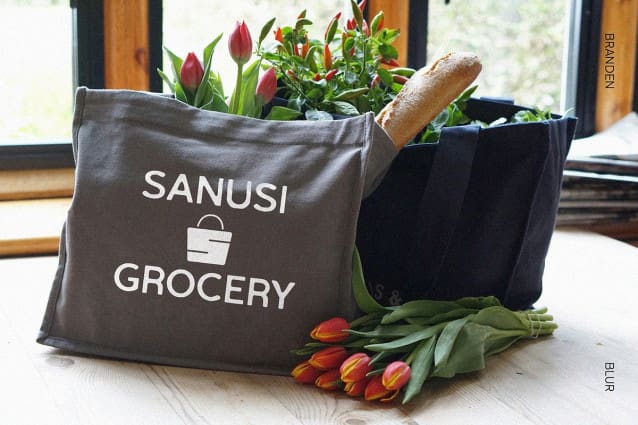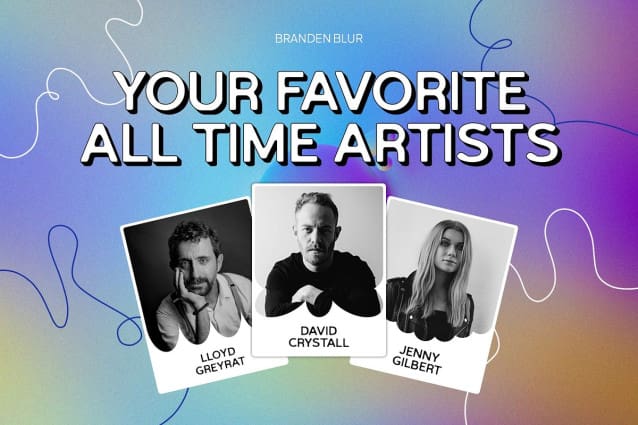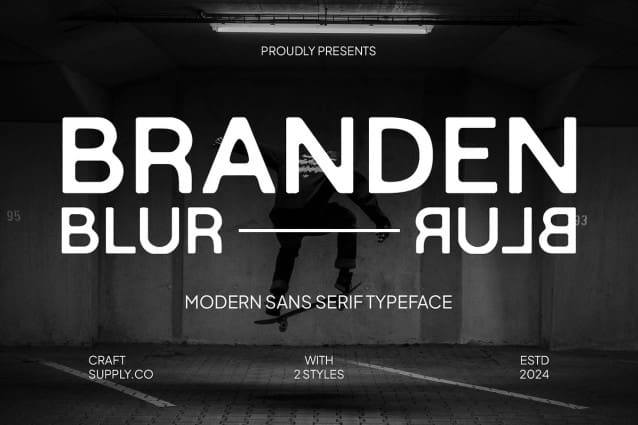
Branden Blur Font
Branden Blur Font is a modern sans-serif font with a blur effect, perfect for conveying a modern, futuristic, and experimental feel. Its sleek and contemporary design adds a unique touch to any project, ensuring your message stands out with a modern edge.
Ideal for Creative Projects Perfect for posters, album covers, experimental graphic design, and other creative projects, Branden Blur ensures your creations are both seen and remembered. Its blur effect enhances the visual appeal, making it an excellent choice for designs that prioritize creativity and uniqueness.
Versatile and Unique Despite its modern aesthetic, Branden Blur remains versatile and unique. Its sans-serif format makes it suitable for a wide range of projects where a font that exudes modernity and creativity is essential for making a statement.
Perfect for Adding a Creative Touch Branden Blur is ideal for projects requiring a font with a creative touch. Whether you’re designing a poster, album cover, or experimental graphic, this font will undoubtedly add a distinct and memorable element to your designs.